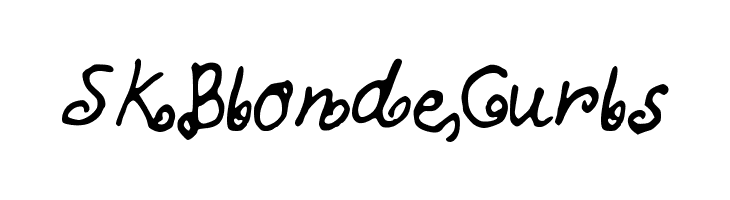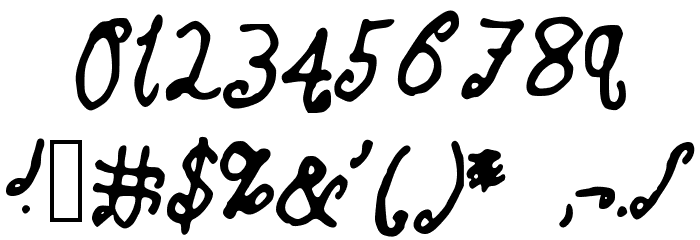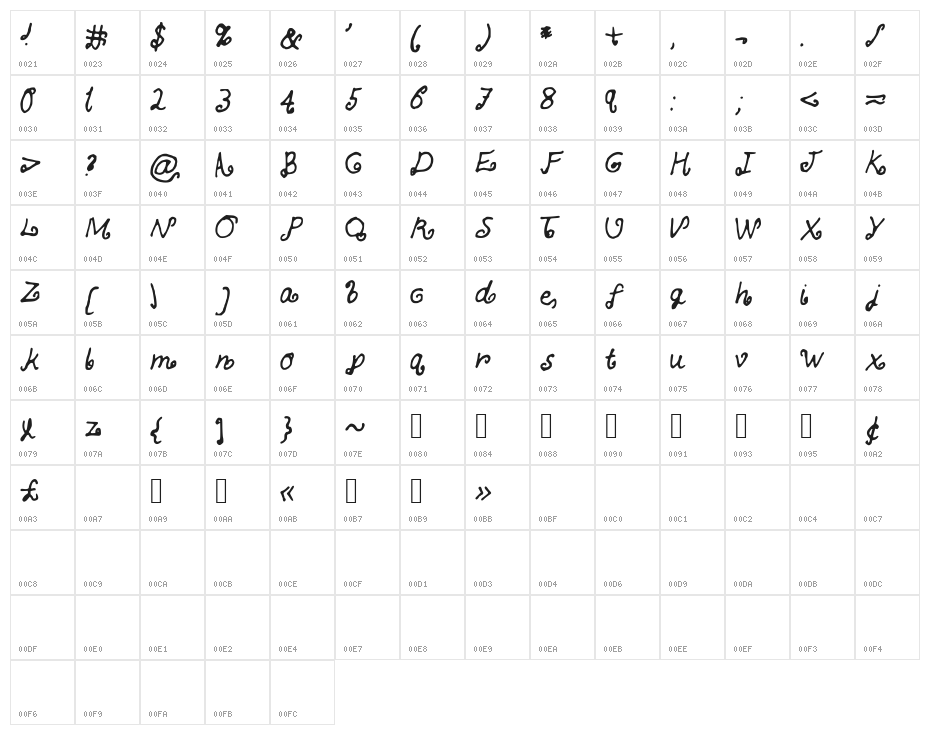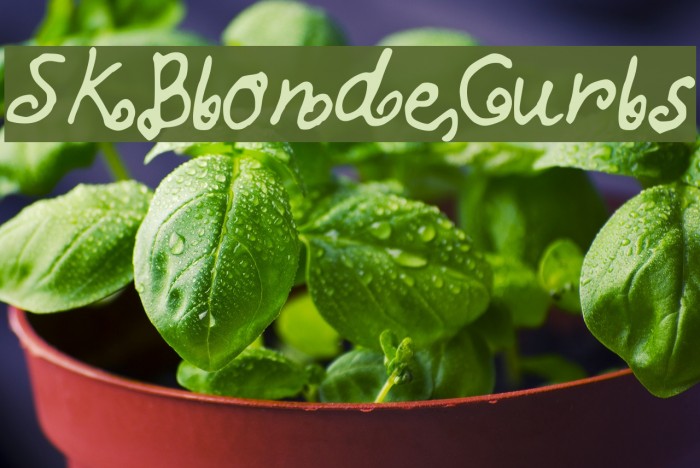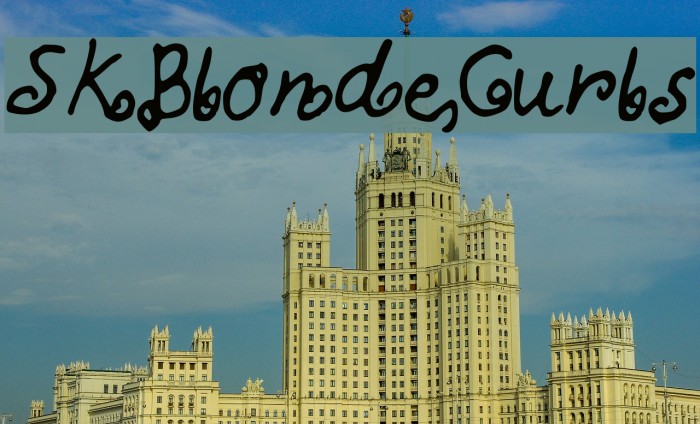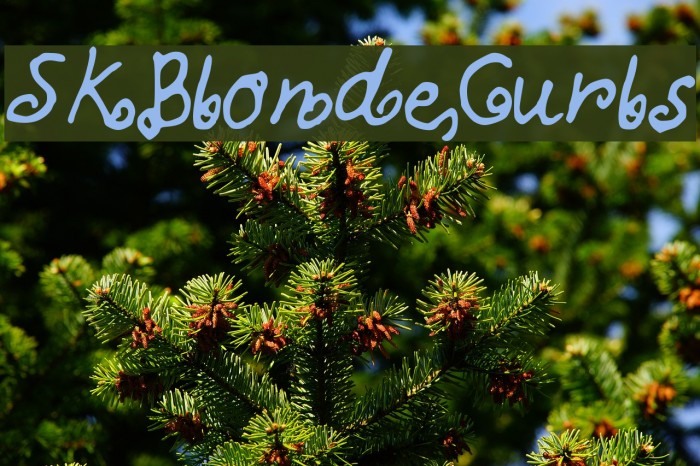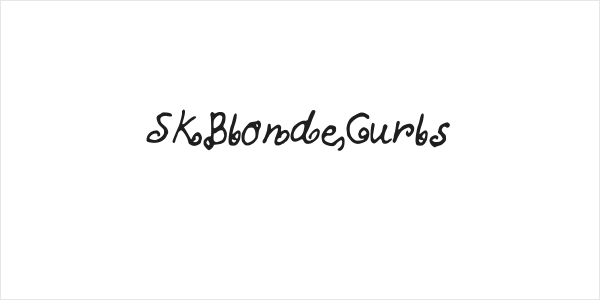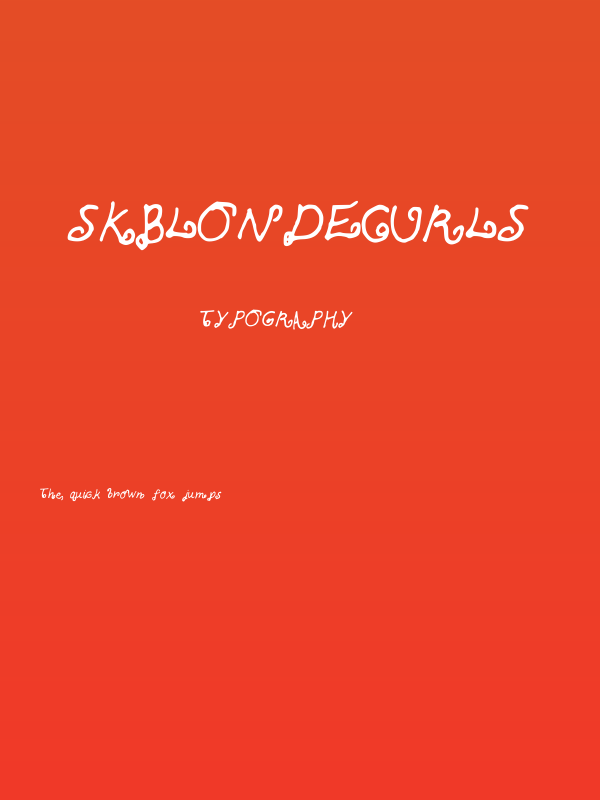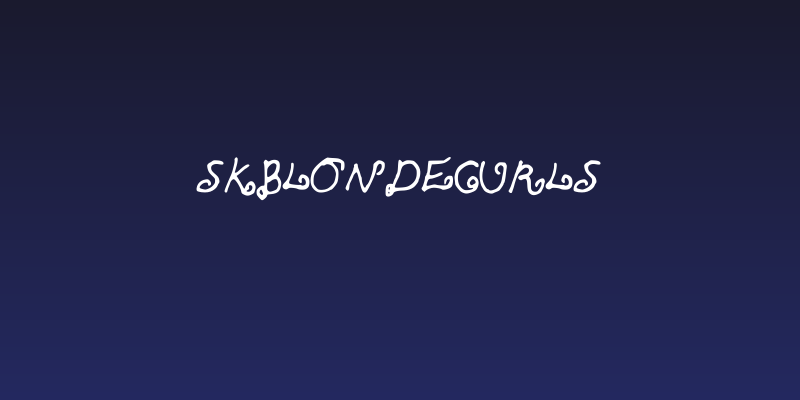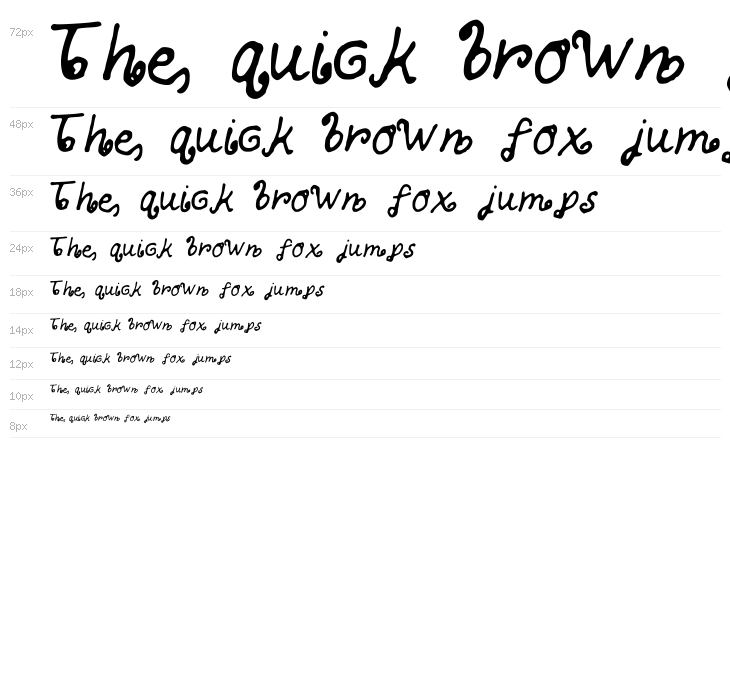
SKBlondeCurls Font
SKBlondeCurls Description
This font features a playful and whimsical style, characterized by its curly and looping strokes. Each letter is adorned with unique swirls and embellishments, giving it a lively and dynamic appearance. The uppercase letters maintain a consistent height, while the lowercase letters exhibit a more varied baseline, adding to the font's charm. The numbers and special characters continue this theme, with each symbol incorporating the same curly design elements. This font is ideal for projects that require a fun and informal touch, such as children's books, greeting cards, or playful branding.
| Overall Style | Whimsical, Playful |
| Use Case | Headlines, Logos, Decorative text |
| Proposed Projects | Children's books, greeting cards, playful branding, invitations. |